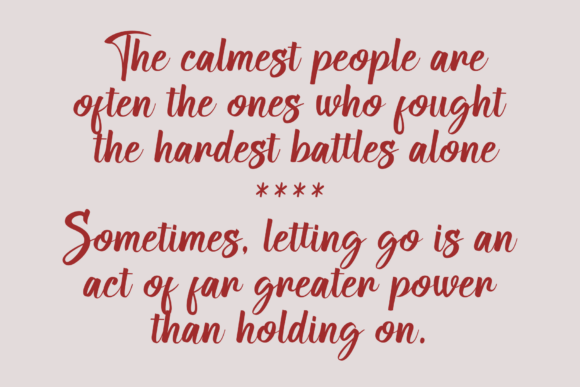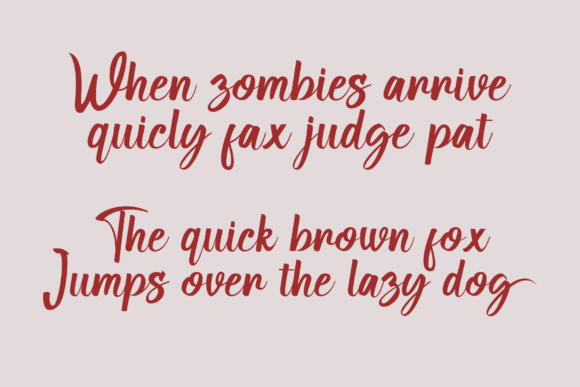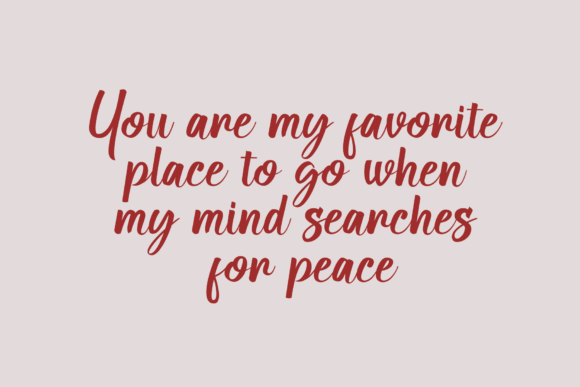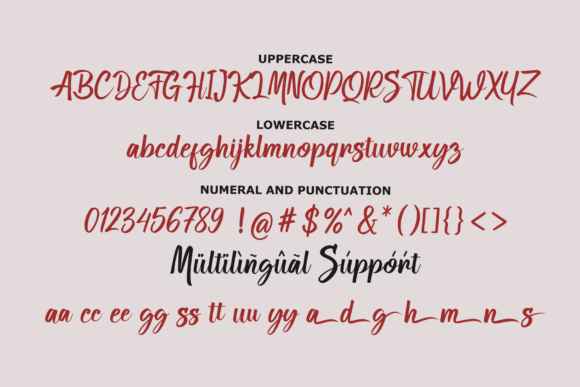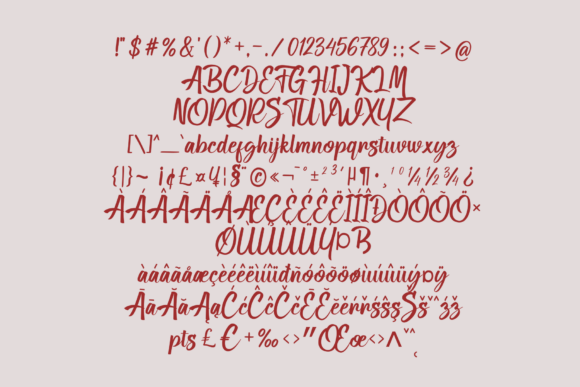
Discover the Elegance of Belariva Ameralis Font: A Perfect Choice for Designers and Crafters
In the world of typography, a font can make all the difference in the success of a design project. For designers and crafters looking for an elegant and delicate handwritten typeface, Belariva Ameralis Font is an excellent choice. This beautiful font is perfect for a variety of design needs, including logos and branding, social media posts, advertisements, business cards, wedding invitations, product design, and more.
What Makes Belariva Ameralis Font Special?
Belariva Ameralis Font is a stunning example of a handwritten typeface that exudes elegance and sophistication. Its delicate strokes and curves make it perfect for designs that require a touch of refinement and luxury. The font is designed to be versatile, making it suitable for a wide range of design projects, from digital to print.
Key Features of Belariva Ameralis Font
• Elegant and Delicate: Belariva Ameralis Font features elegant and delicate strokes that add a touch of sophistication to any design.
• PUA Encoded: The font is PUA encoded, which means you can access all the glyphs and alternates with ease, giving you more creative freedom.
• Handwritten: The font has a beautiful handwritten feel, making it perfect for designs that require a personal touch.
• Versatile: Belariva Ameralis Font is suitable for a wide range of design projects, including logos, branding, social media posts, advertisements, business cards, wedding invitations, product design, and more.
Use Cases for Belariva Ameralis Font
Belariva Ameralis Font is a versatile font that can be used in a variety of design projects. Here are some use cases where this font shines:
• Logos and Branding: Create a lasting impression with a beautiful logo that features Belariva Ameralis Font. The font’s elegant and delicate strokes make it perfect for luxury brands, fashion labels, and high-end products.
• Social Media Posts: Add a touch of elegance to your social media posts with Belariva Ameralis Font. The font is perfect for creating engaging and visually appealing content that stands out from the crowd.
• Advertisements: Create stunning advertisements with Belariva Ameralis Font. The font’s delicate strokes and curves make it perfect for creating eye-catching headlines and descriptions.
• Business Cards: Make a great impression with a beautifully designed business card that features Belariva Ameralis Font. The font’s elegant and sophisticated feel makes it perfect for professionals and entrepreneurs.
• Wedding Invitations: Create stunning wedding invitations with Belariva Ameralis Font. The font’s delicate and elegant strokes make it perfect for wedding designs, save-the-date cards, and thank-you notes.
• Product Design: Add a touch of luxury to your product design with Belariva Ameralis Font. The font is perfect for creating labels, packaging, and branding materials that exude elegance and sophistication.
Why Choose Belariva Ameralis Font?
Belariva Ameralis Font is a great choice for designers and crafters looking for an elegant and delicate handwritten typeface. Here are some reasons why you should choose this font:
• Unique and Exclusive: Belariva Ameralis Font is a unique and exclusive font that will make your designs stand out from the crowd.
• Elegant and Sophisticated: The font’s elegant and sophisticated feel makes it perfect for designs that require a touch of luxury and refinement.
• Easy to Use: The font is PUA encoded, making it easy to access all the glyphs and alternates.
• Versatile: Belariva Ameralis Font is suitable for a wide range of design projects, making it a great addition to your font library.
Font Name Belariva Ameralis Font
Author NH Studio
In conclusion, Belariva Ameralis Font is a beautiful and elegant handwritten typeface that is perfect for designers and crafters looking for a touch of sophistication and luxury in their designs. With its delicate strokes and curves, PUA encoding, and versatility, this font is a great choice for a wide range of design projects. Whether you’re creating logos, branding materials, social media posts, advertisements, business cards, wedding invitations, or product designs, Belariva Ameralis Font is a great addition to your font library.